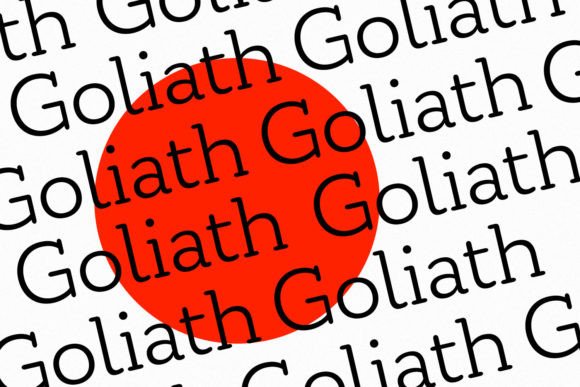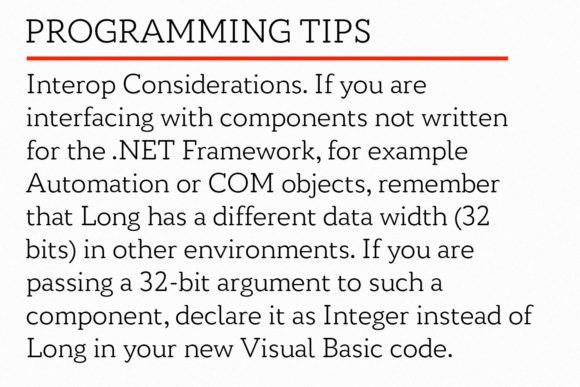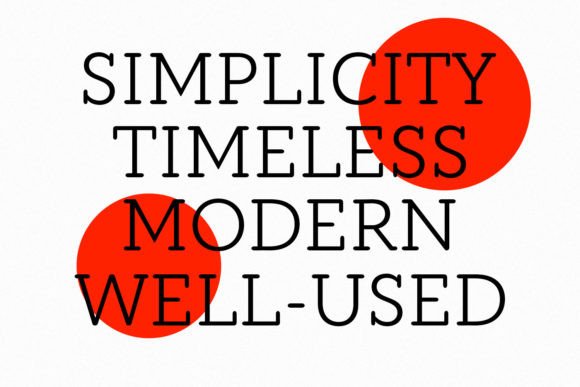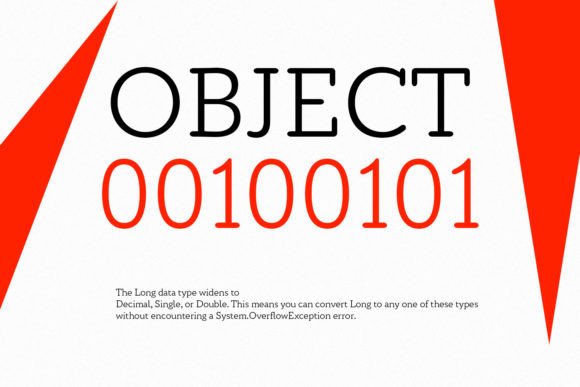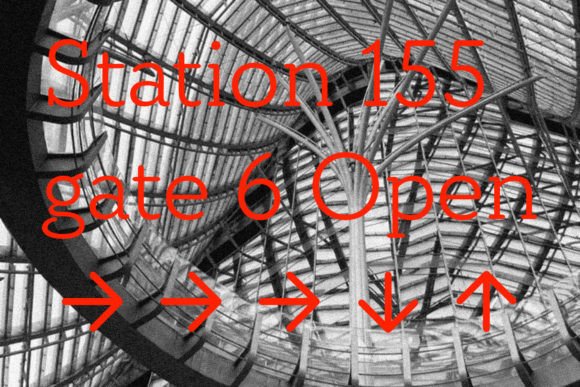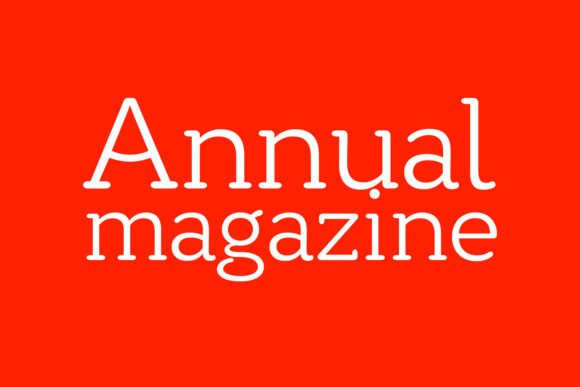
Introduction to Rilego Font Font
Fonts play a crucial role in design, and the Rilego Font font is a typeface that brings both character and versatility to any project. Whether you’re working on a branding project, a website, or a print design, the Rilego Font font offers a unique style that can elevate your work.
Rilego is a semi mono-spaced serif font.
Incredibly versatile, this font is suitable for a wide spectrum of applications Add it confidently to your creative projects and you will love the results.
Key Features of Rilego Font Font
Why Choose Rilego Font Font?
The Rilego Font font is more than just a typeface – it’s a design tool that helps you communicate your message with style and clarity. Its unique character set and versatile design make it suitable for a wide range of applications, from elegant invitations to bold headlines.
With its carefully crafted letterforms and balanced proportions, the Rilego Font font ensures readability and visual appeal across all mediums.
What makes Rilego Font font special?
The Rilego Font font stands out with its unique design, exceptional readability, and versatility across various design applications.